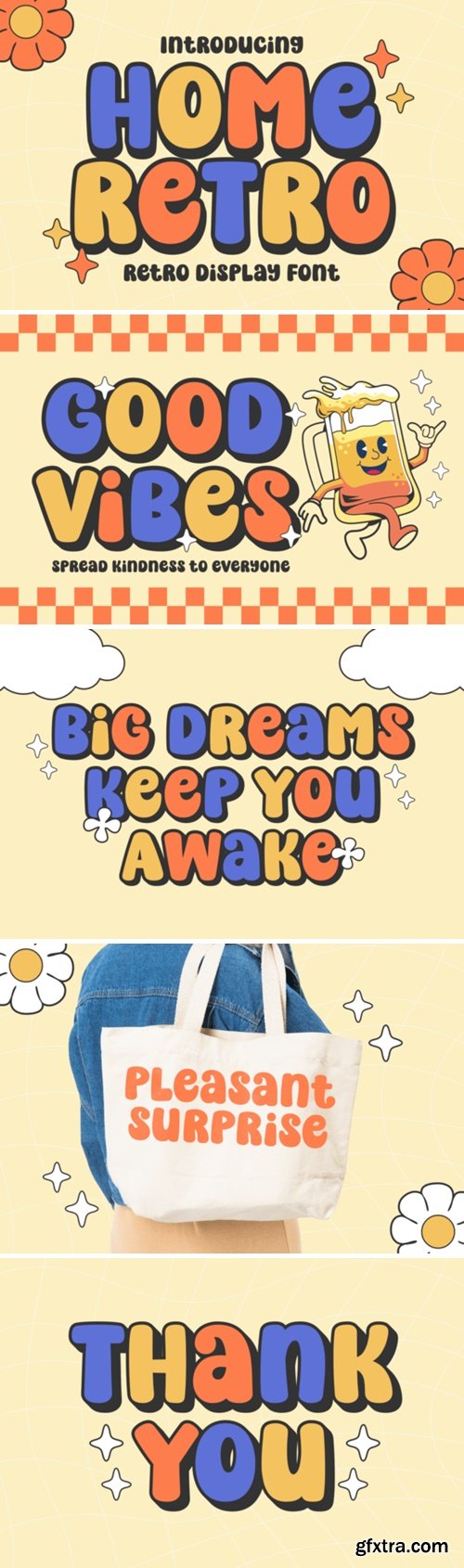
Home Retro is a playful and chubby display font that brings a retro vibe to your projects. With its fun and friendly style, it adds a touch of whimsy to any design. Perfect for creating eye-catching titles, posters, or logos with a vintage feel. Let Home Retro infuse your creations with nostalgia and cheerfulness.